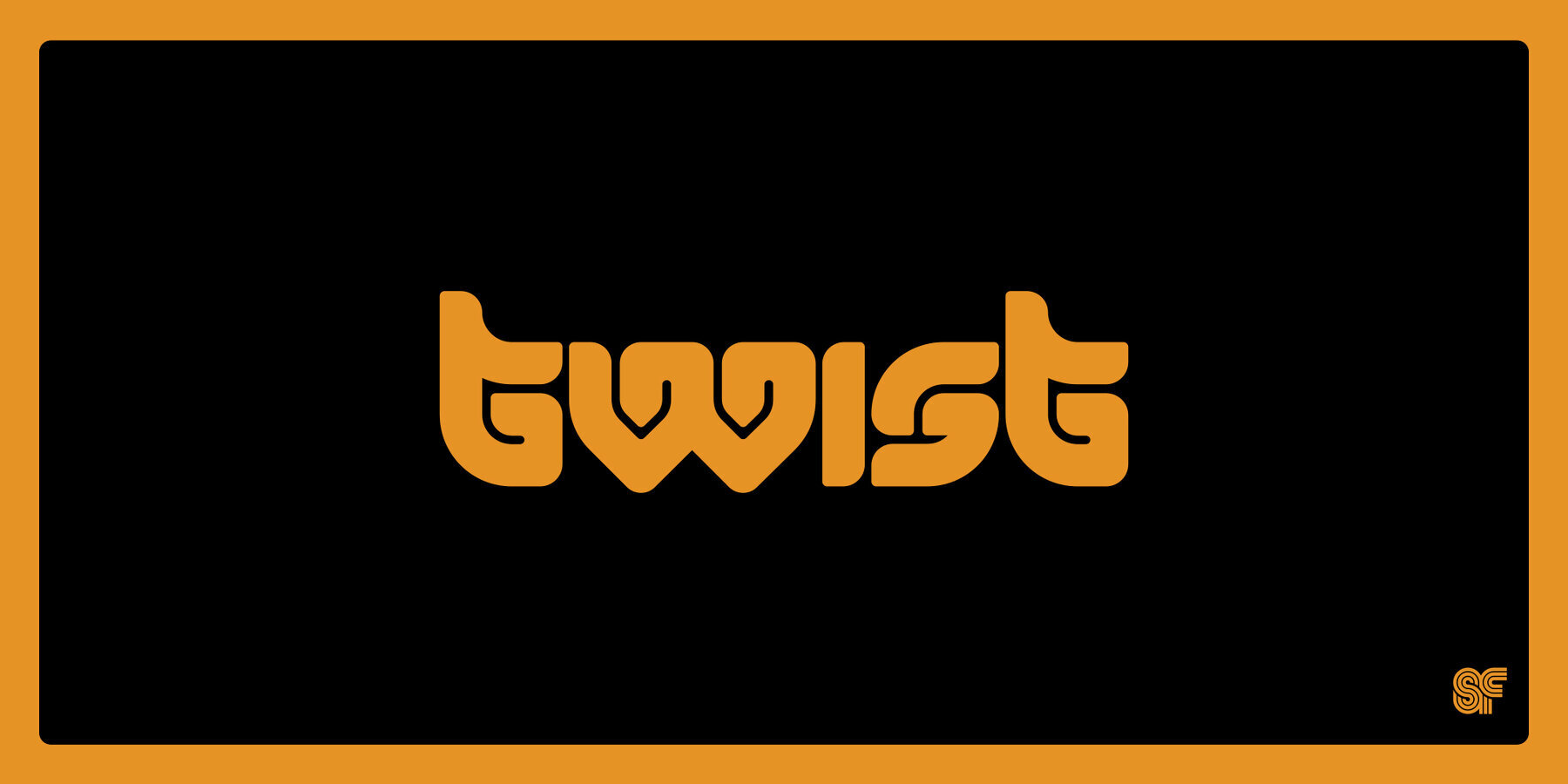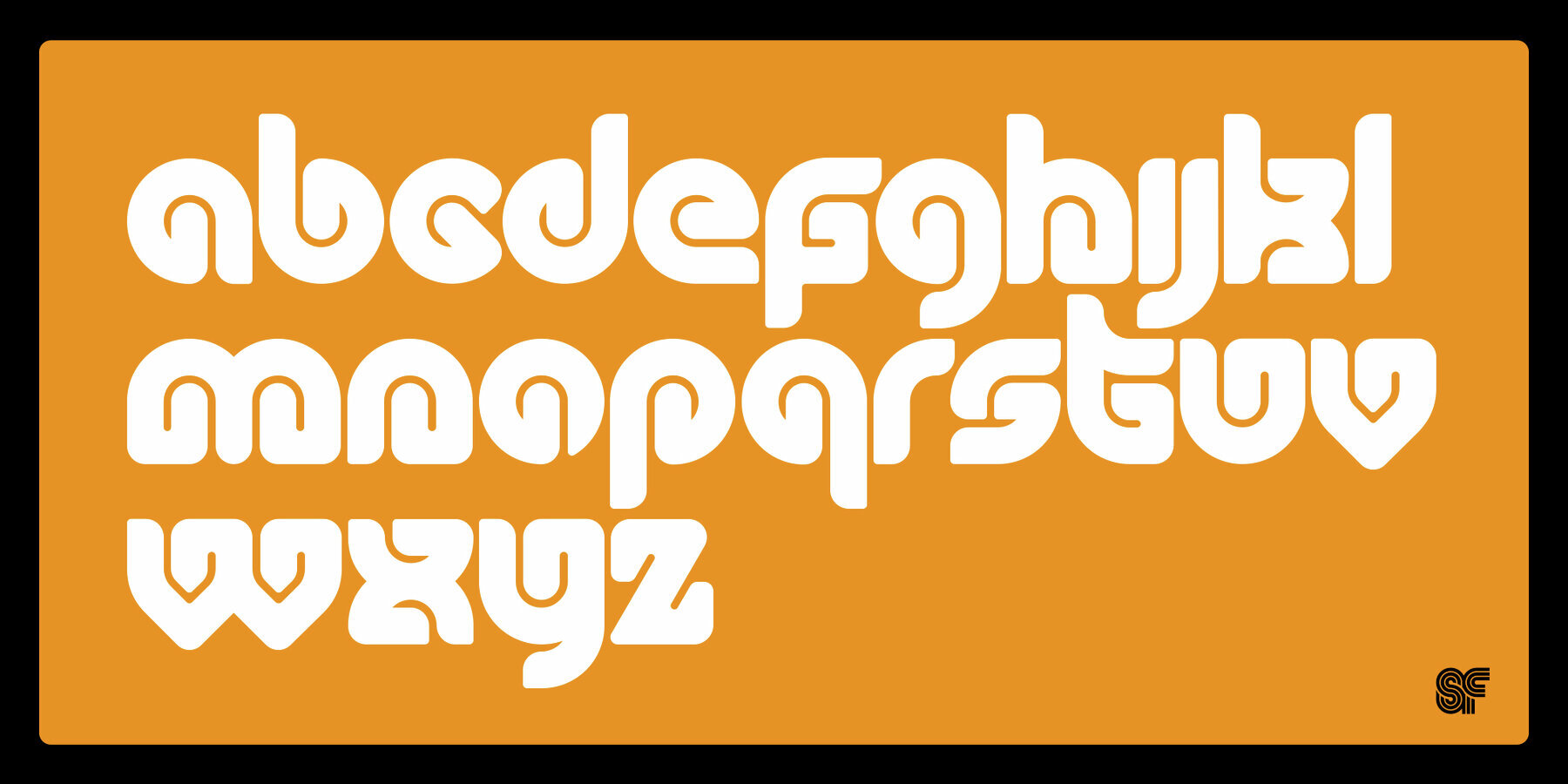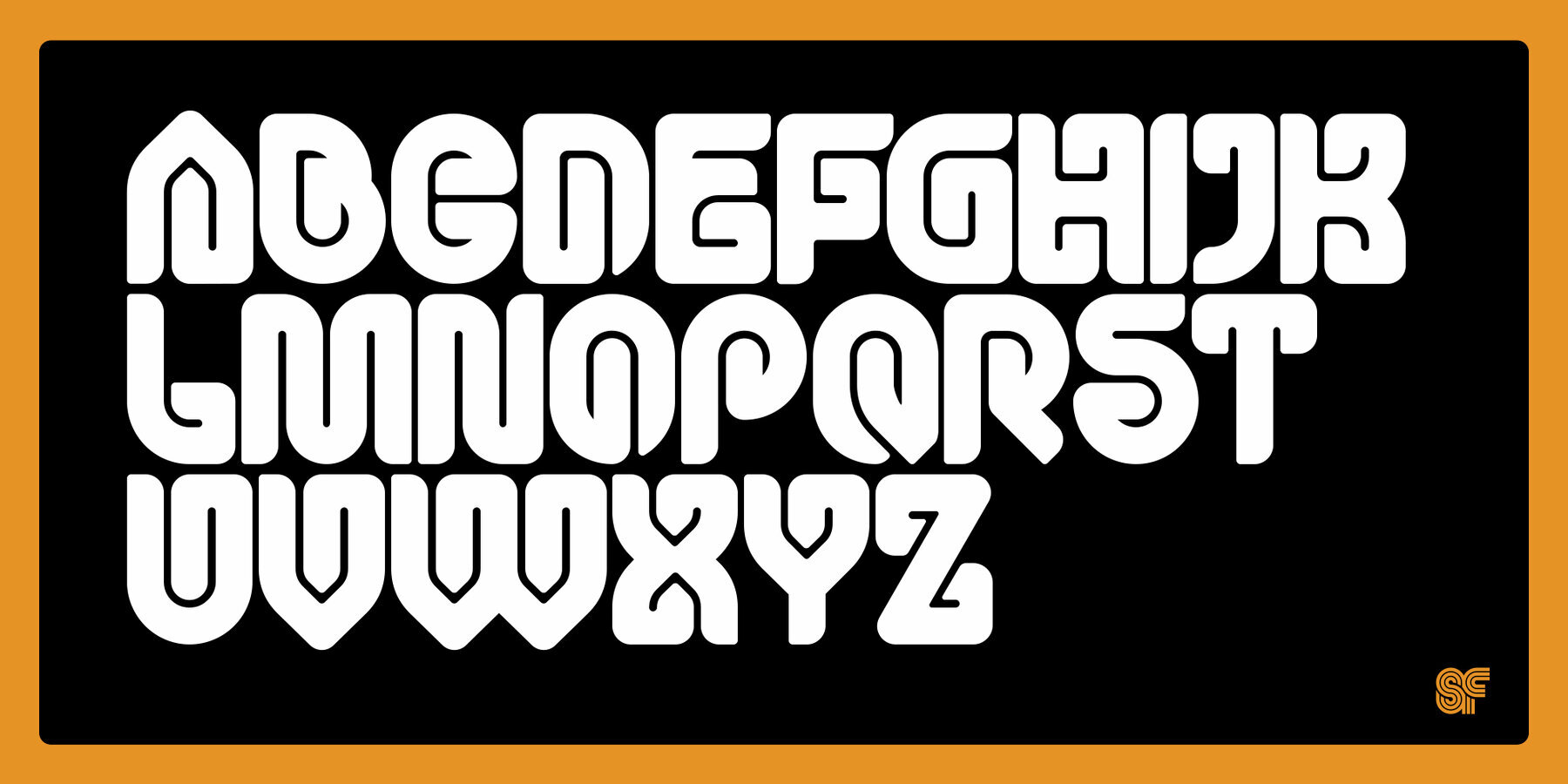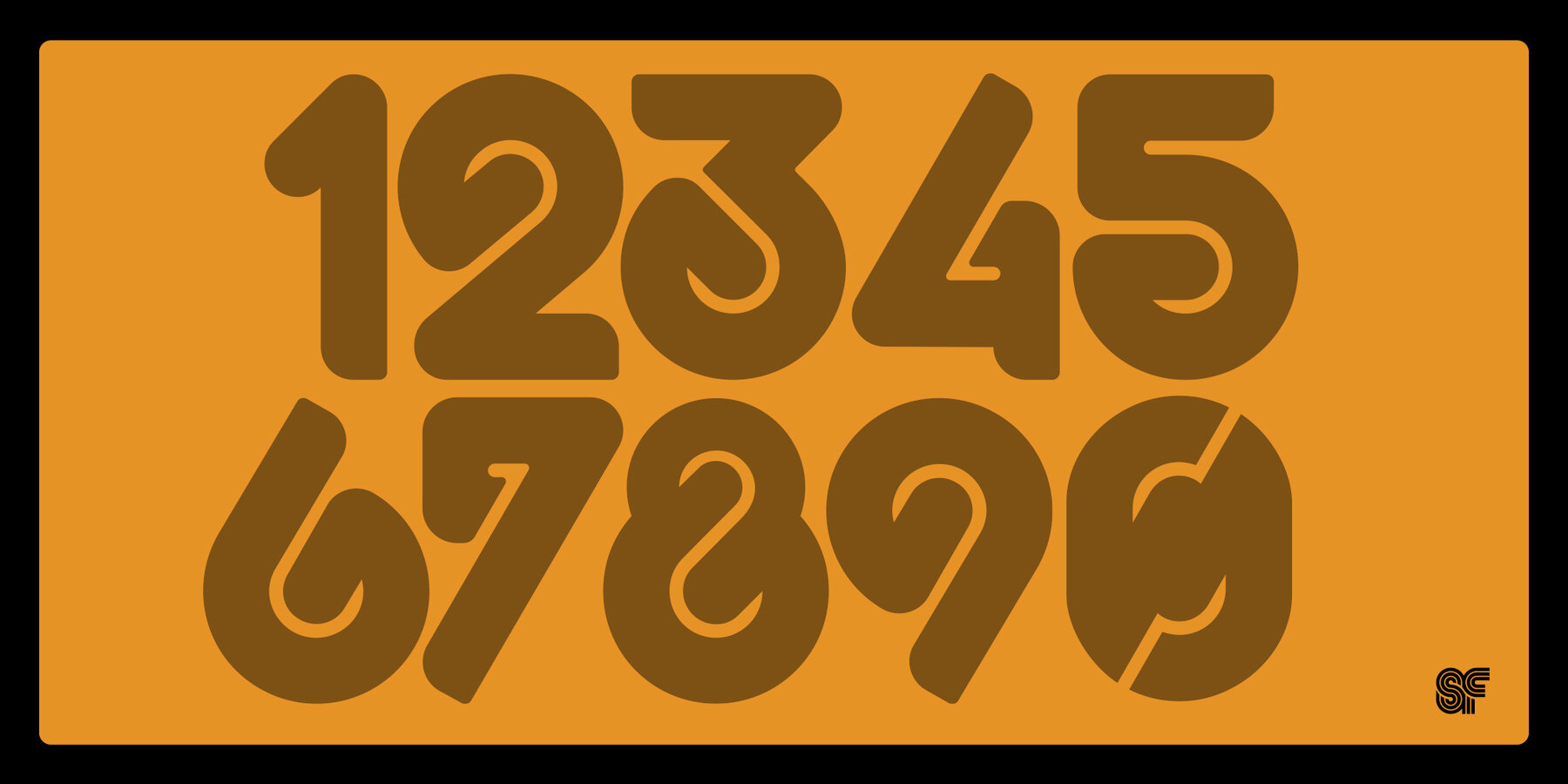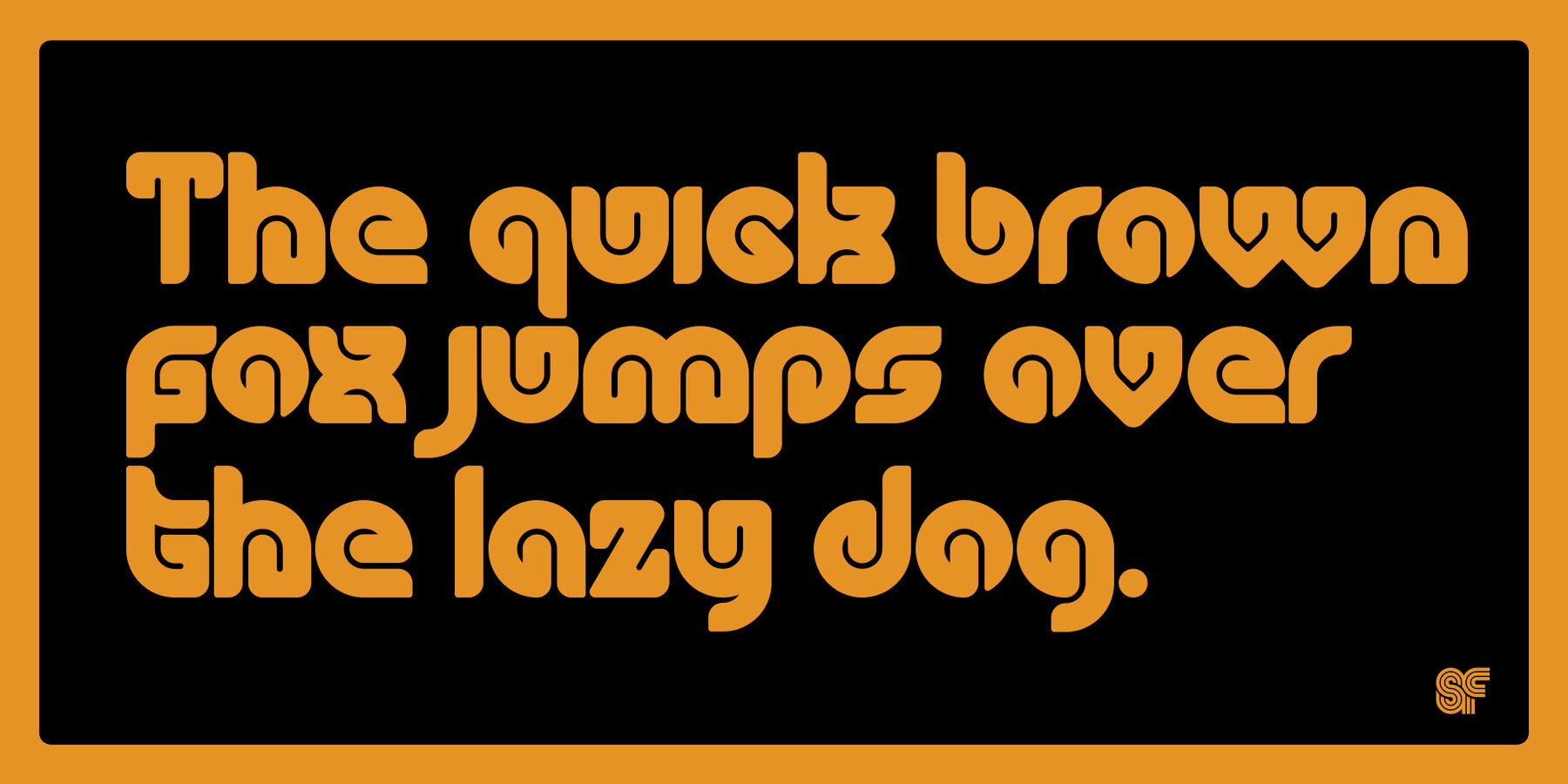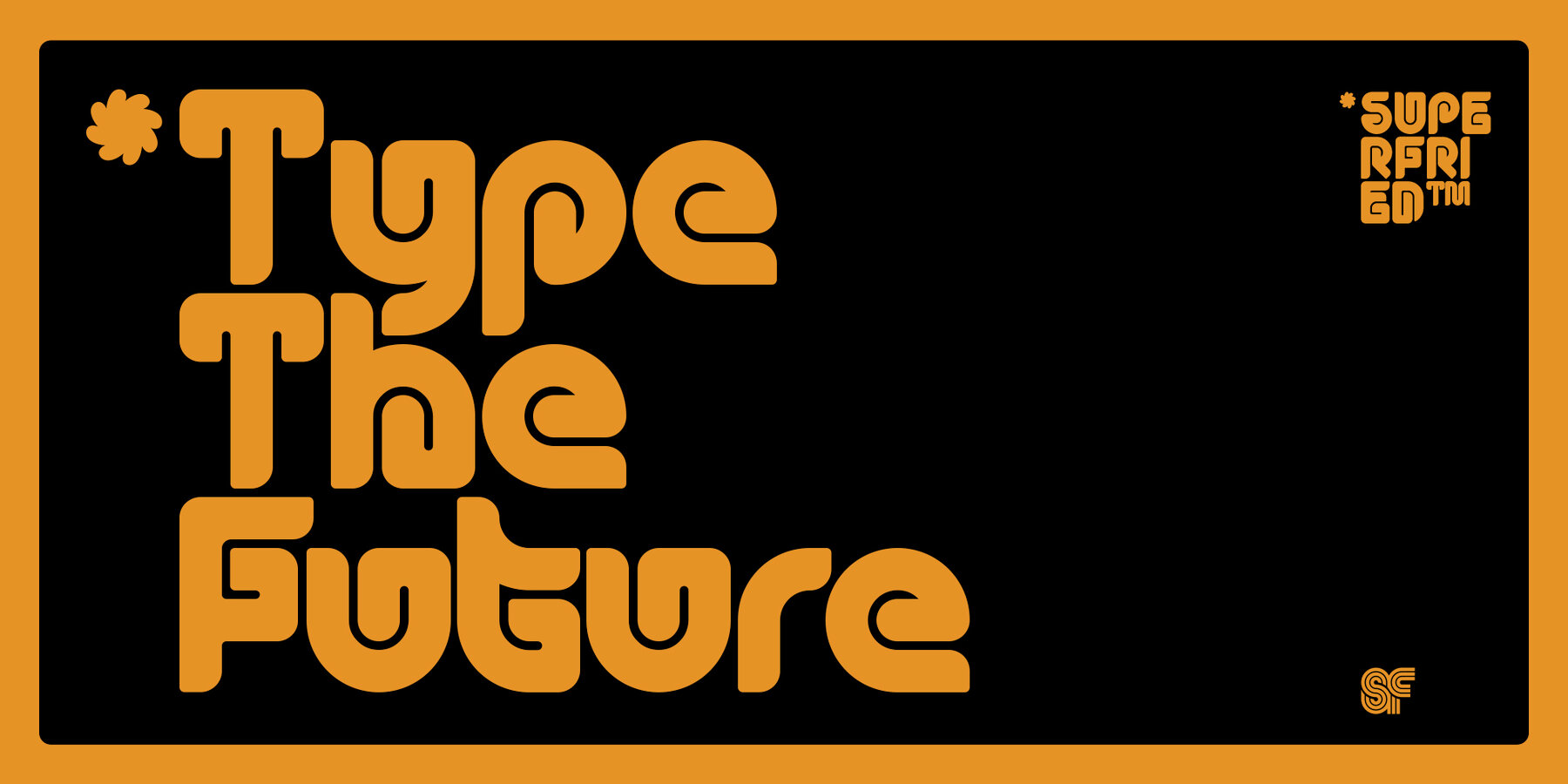
Twist
Twist is an experimental, curvy, display typeface designed by Superfried. As it’s name suggests, it features intricate twists & turns. Twist has a very retro feel & it’s chunky structure leads to a distinct, high-impact display face. Twist has been featured on the Behance curated typography gallery TypographyServed.com.